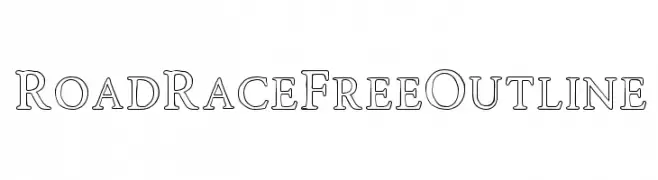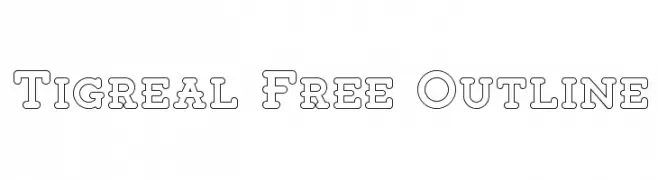
A bold, outlined serif font with a modern and elegant style.
A rugged, textured serif font with a vintage, hand-crafted feel.
A bold, outlined serif font with a classic and structured design.
A bold, outlined serif font with a modern and impactful design.
A bold, rough-textured font with a vintage, handcrafted appearance.
A bold, textured font with a vintage, handcrafted appearance.
A classic serif font with elegant curves and sharp serifs.
A bold, expressive handwritten font with playful curves and thick strokes.
A bold, brush script font with a dynamic and artistic style.
A sophisticated script font with elegant, flowing cursive strokes.